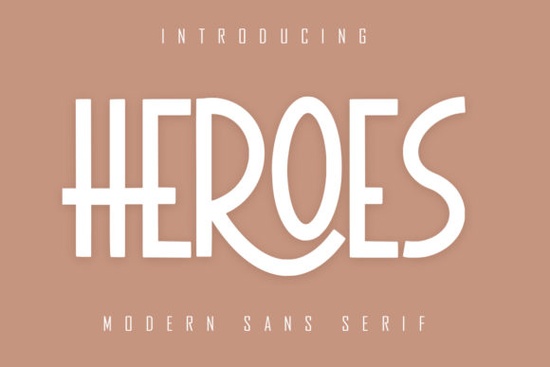
Finding the right typeface can make or break a design. The Heroes Font is a modern, daring sans serif that strikes a balance between classy elegance and bold personality. If you're working on logos, branding, invitations, or social media graphics, this typeface deserves a closer look. It's the kind of font that feels polished without being stuffy and that's hard to find.
What Makes the Heroes Font Stand Out?
Sans serif fonts are everywhere, but not all of them carry the same weight and character. The Heroes typeface brings a confident, modern aesthetic that works across many design contexts. Its clean letterforms and slightly daring proportions give it an edge over more generic options.
Here's what you'll notice right away:
- Clean geometry the letter shapes feel balanced and intentional, without unnecessary flourishes.
- Elegant weight it doesn't scream for attention, but it definitely holds it.
- Versatile tone it works for luxury branding just as well as it does for bold event posters.
If you've explored other sans serif options like Godthem Font or the Think Loved Font, you'll find that Heroes sits in a sweet spot it's more assertive than a minimalist font, but more refined than a heavy display face.
What Can You Use This Font For?
One of the best things about this modern sans serif is how many projects it fits. Based on the font's design and style, here are some practical uses:
- Logo design the bold, clean lines make it ideal for wordmarks and brand identities.
- Wedding invitations and stationery its elegant feel pairs well with serif or script accents.
- Social media posts readable at multiple sizes, which matters for Instagram and Pinterest graphics.
- Print-on-demand products think t-shirts, mugs, and tote bags where bold typography sells.
- Website headers and banners it gives a professional, contemporary look to digital layouts.
- Packaging and labels especially for brands that want to look modern and trustworthy.
How Does It Pair With Other Fonts?
Good typography is rarely about a single font. It's about how fonts work together. Heroes Font plays well with others, especially when you need contrast between a heading and body text.
Try pairing it with a script or handwriting font for invitations or greeting cards. For example, Ballpoint Writing Font could add a personal, handwritten touch next to the structured hero headings. Similarly, if you're going for a vintage-inspired project, Polaroid Font would create an interesting contrast with Heroes' modern feel.
For projects that need a softer, more romantic sans serif companion, Think Loved offers a gentler alternative that still keeps things clean and readable.
Tips for Getting the Most Out of This Typeface
Here are a few practical suggestions based on how this font is designed:
- Use it at larger sizes for headings, logos, and display text where its proportions really shine.
- Adjust letter spacing slightly for all-caps settings a little tracking goes a long way with sans serif fonts.
- Keep body text simple pair Heroes with a neutral, readable font for paragraphs rather than using it everywhere.
- Test it in context before committing mock up your design and see how it looks at actual size on actual products.